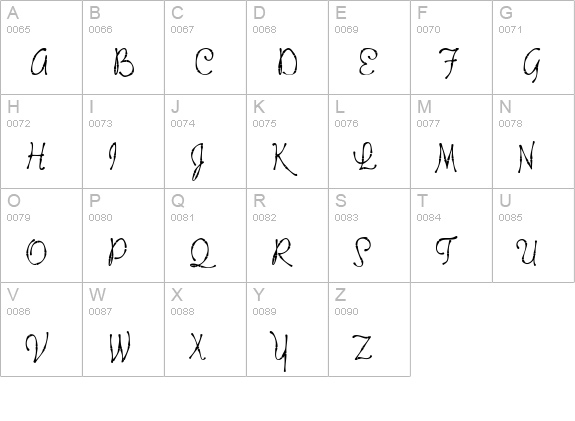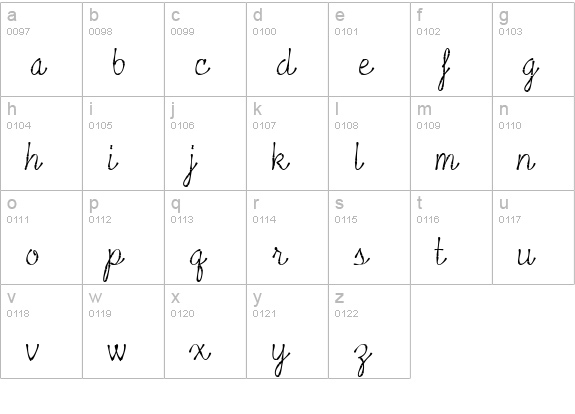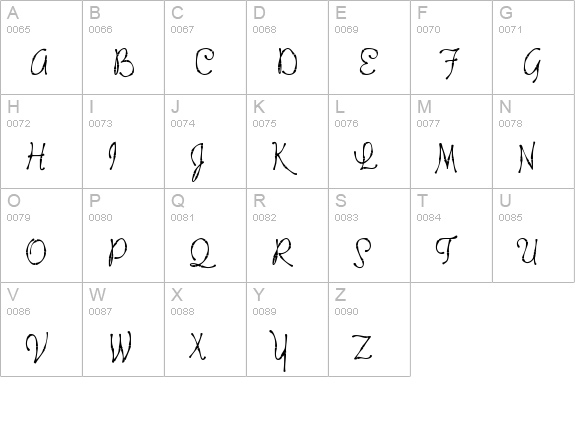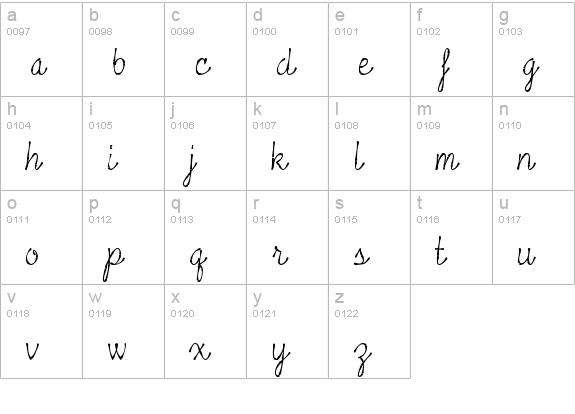
Tropicali Script BTN Bamboo Font Details
Tropicali Script BTN Bamboo font is a stunningly beautiful typeface that exudes an air of elegance and whimsy. Its flowing, calligraphic strokes are inspired by the lush and vibrant tropical landscapes, adding a touch of exotic allure to any design project. This font features a unique combination of script and brush styles, making it perfect for a wide range of applications. Whether you're designing invitations, posters, logos, or any other creative project, Tropicali Script BTN Bamboo font will effortlessly bring your ideas to life. Not only does this font capture the essence of tropical beauty, but it also offers the convenience of being freely available to download at FontsMarket.com. This means that you can easily access this font and incorporate it into your designs without any additional cost. The versatility of Tropicali Script BTN Bamboo font is further enhanced by its extensive character set, including uppercase and lowercase letters, numerals, punctuation marks, and multilingual support. With this font, you have the freedom to express your creativity in various languages and convey your message effectively to a global audience. The attention to detail in every curve and stroke of Tropicali Script BTN Bamboo font showcases the craftsmanship and dedication of its designer. Its smooth and flowing lines create an effortless rhythm that adds a touch of sophistication to any design. Whether you're working on a branding project, a wedding invitation, or a tropical-themed event, Tropicali Script BTN Bamboo font is the perfect choice to infuse your designs with a sense of exotic charm and elegance. So why wait? Download this captivating font for free at FontsMarket.com and let your creativity flourish.